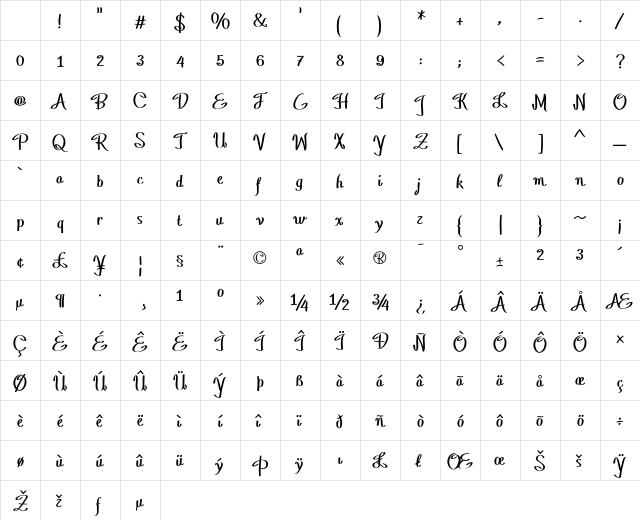
Daiquiri is a composed and adaptable typeface that performs quietly and consistently across a wide range of design contexts. Its bold stroke weight gives it real presence on the page.
Who designed the Daiquiri Bold font?